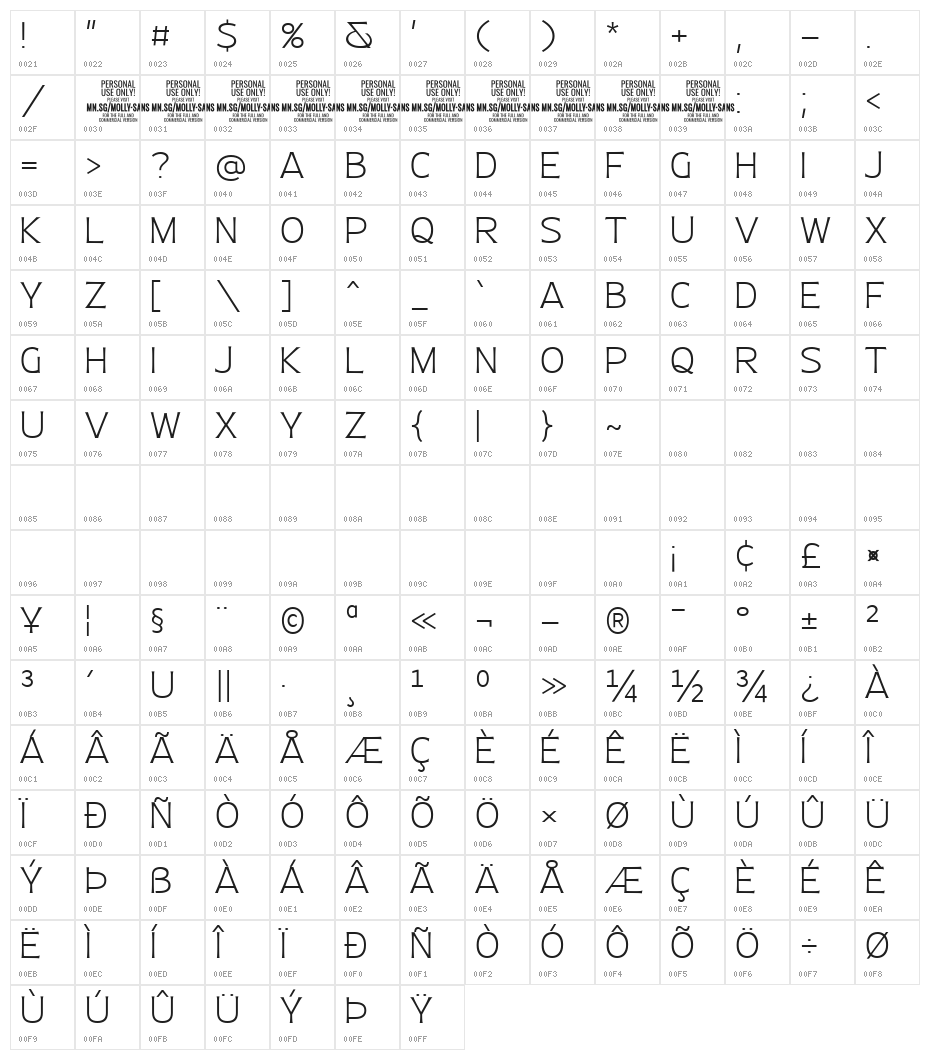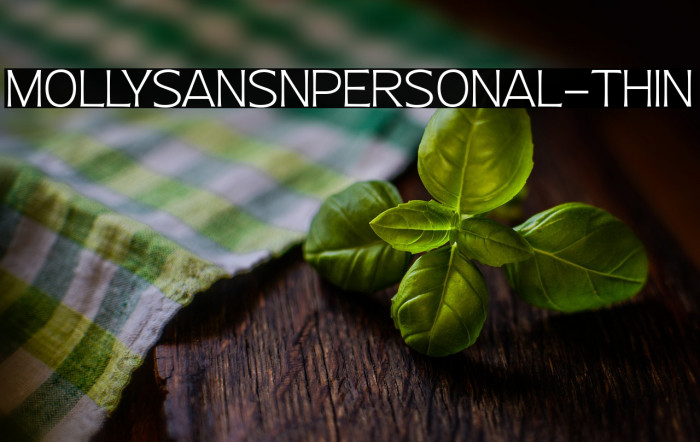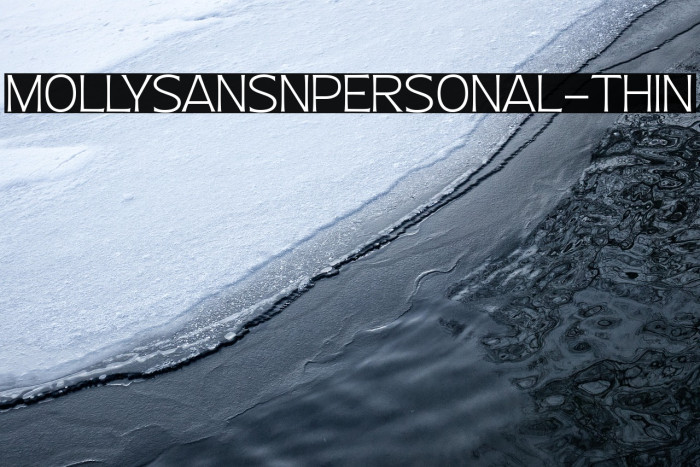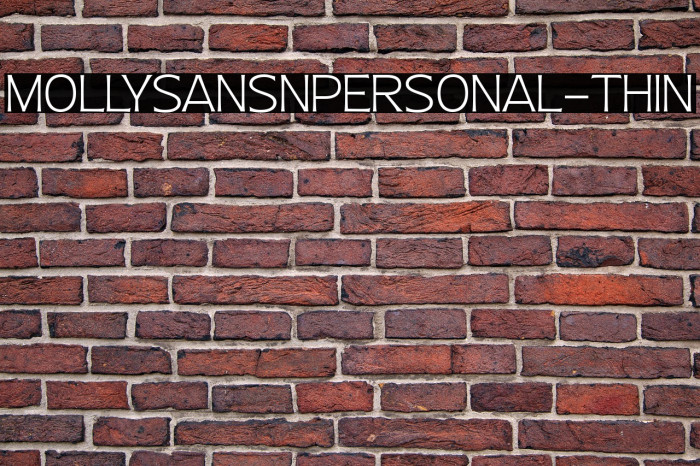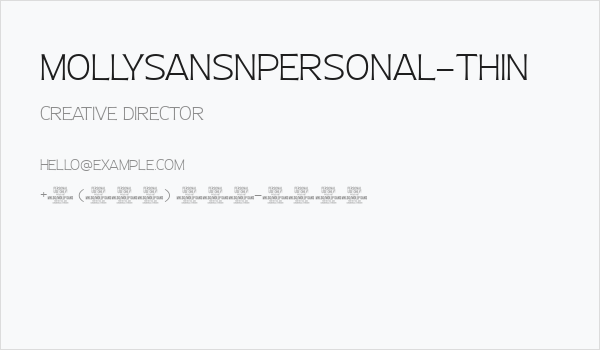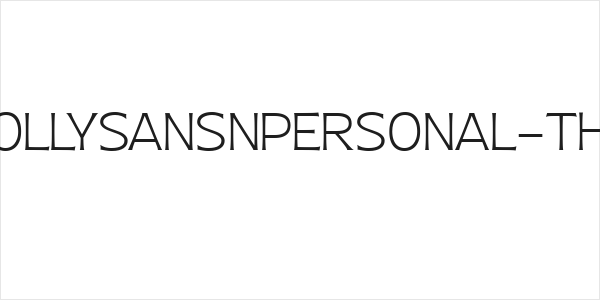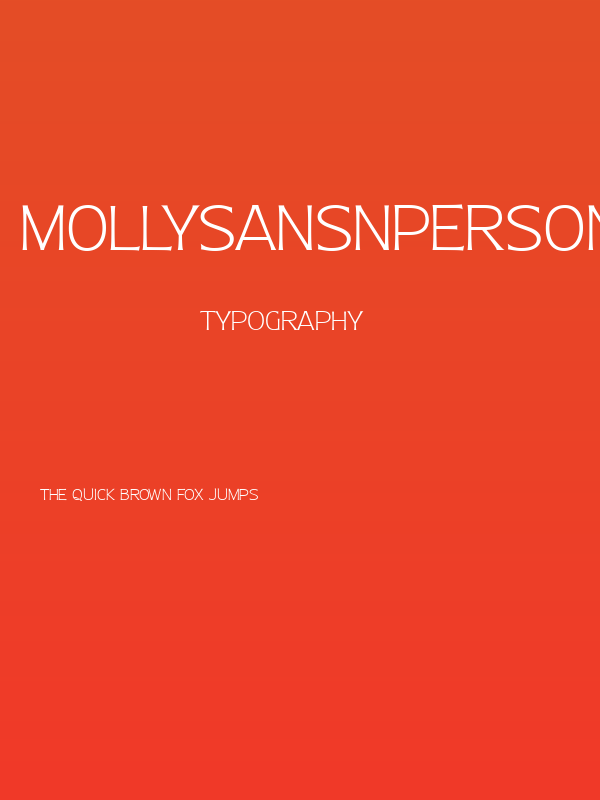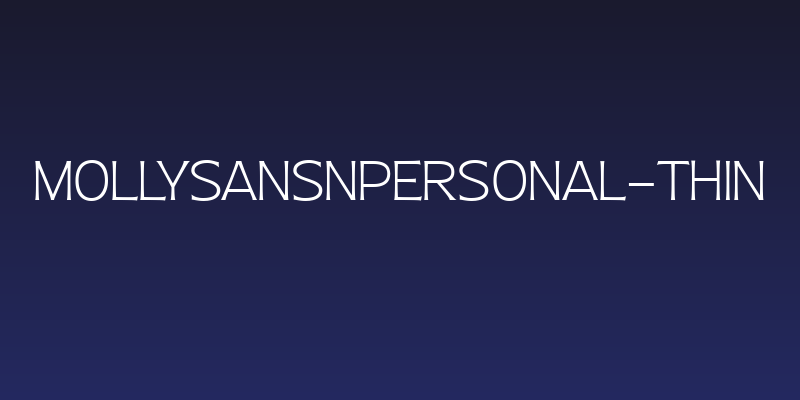
MollySansNPERSONAL-Thin Font
MollySansNPERSONAL-Thin Description
This font features a clean and modern sans-serif style with a thin weight, offering a sleek and contemporary appearance. The characters are well-defined with a slight geometric influence, providing a balanced and harmonious look. The uppercase and lowercase letters maintain a consistent height and width, ensuring readability and uniformity. The numerals and special characters are designed to complement the alphabet, maintaining the overall aesthetic. The font's thin strokes and minimalistic design make it ideal for projects that require a subtle yet sophisticated touch.
| Proposed Projects | Ideal for branding, editorial design, web design, and minimalist posters. |